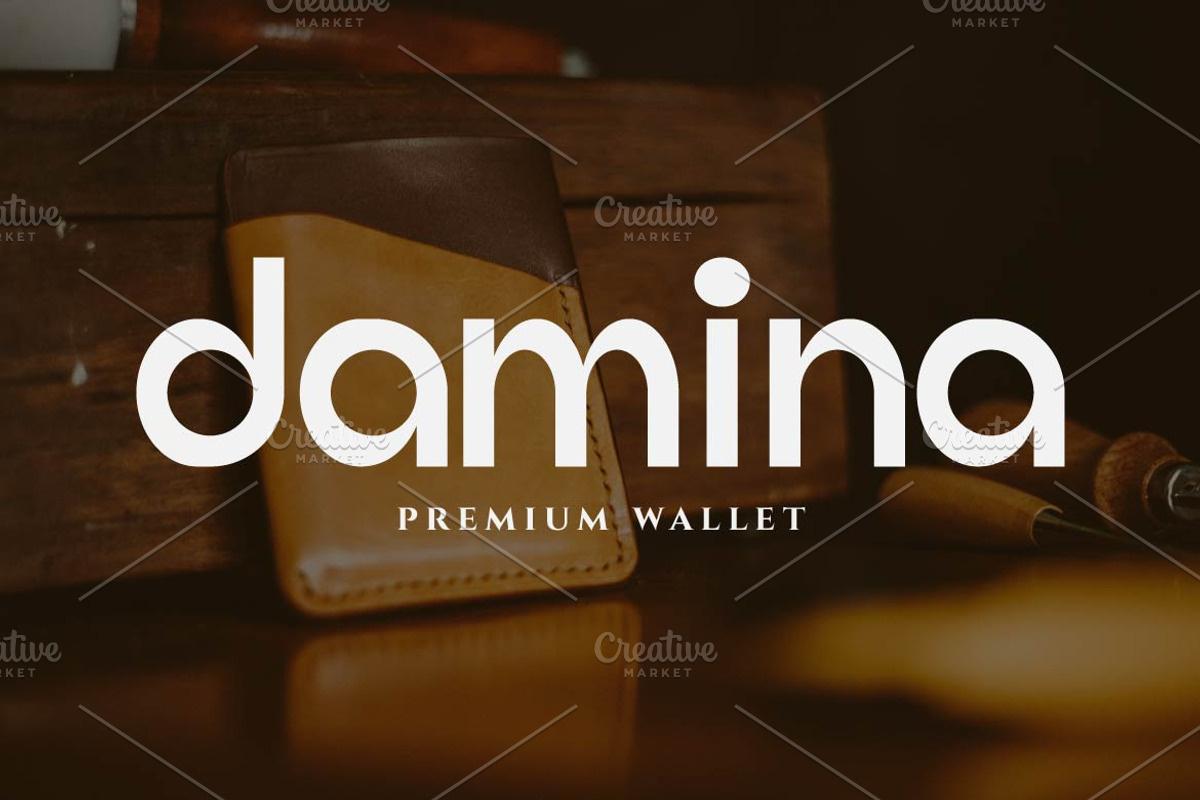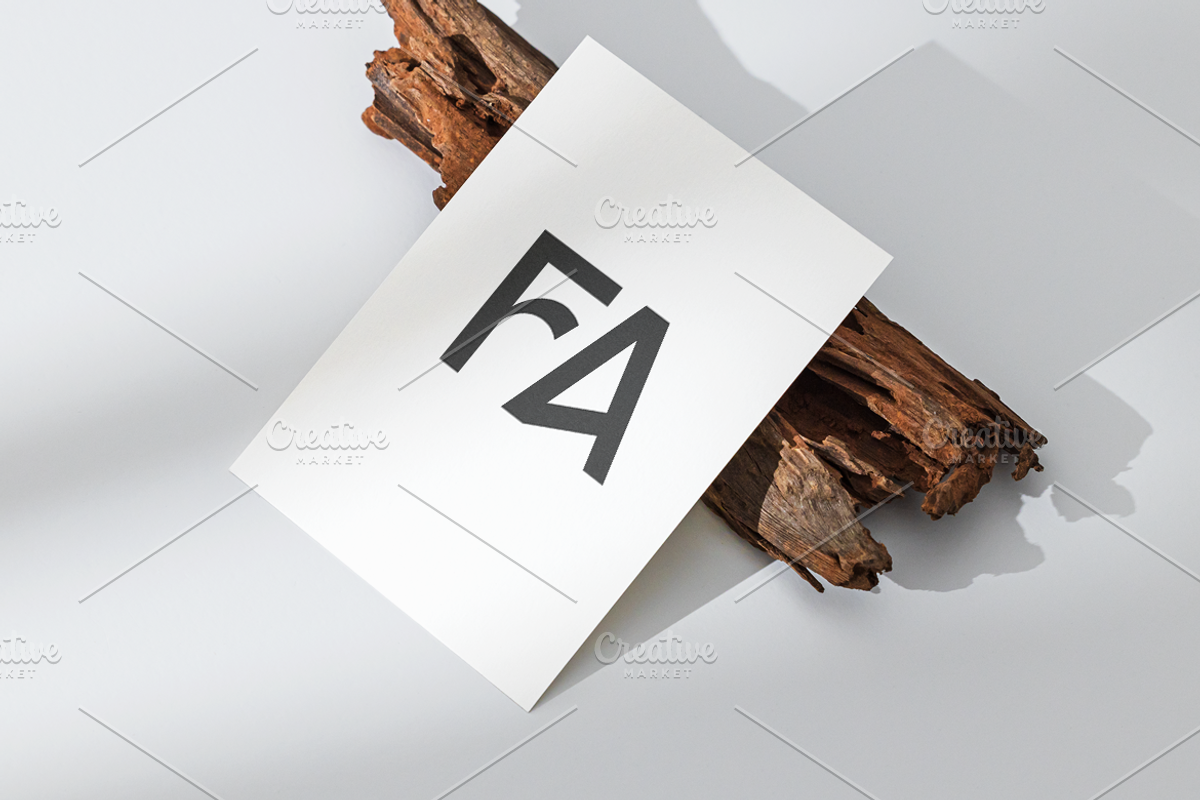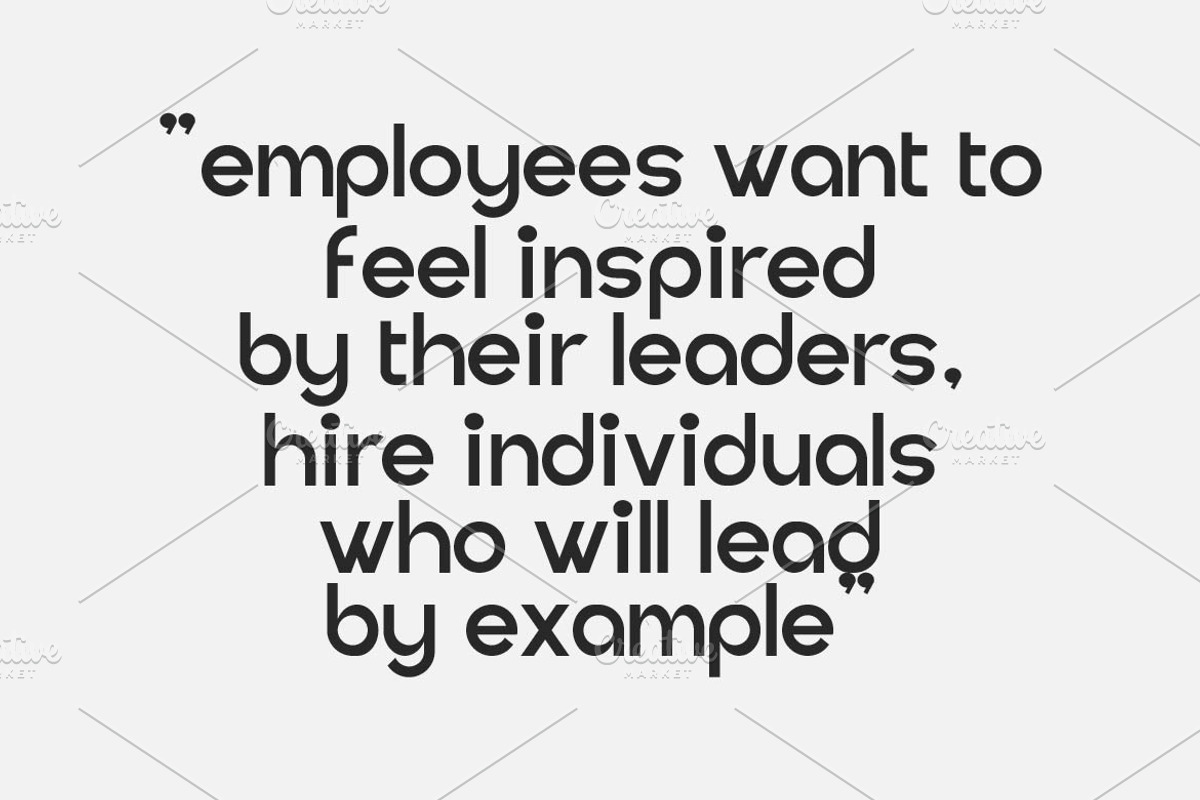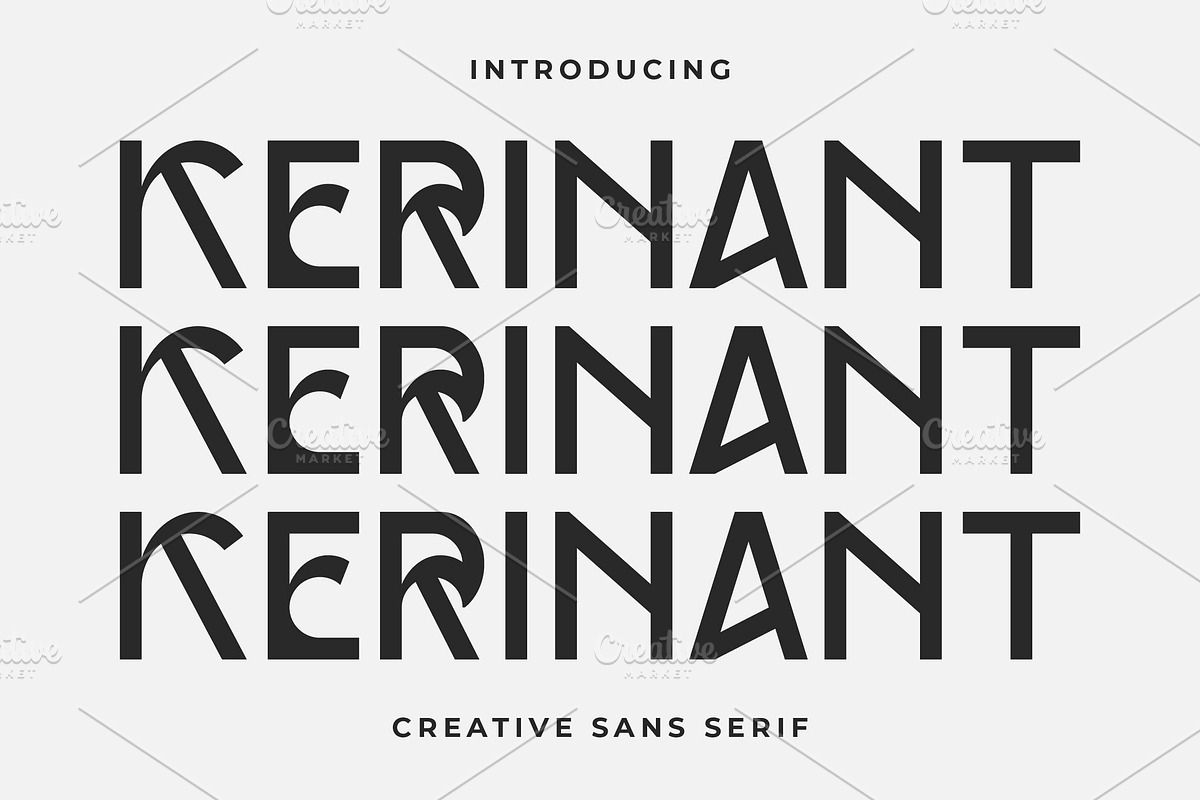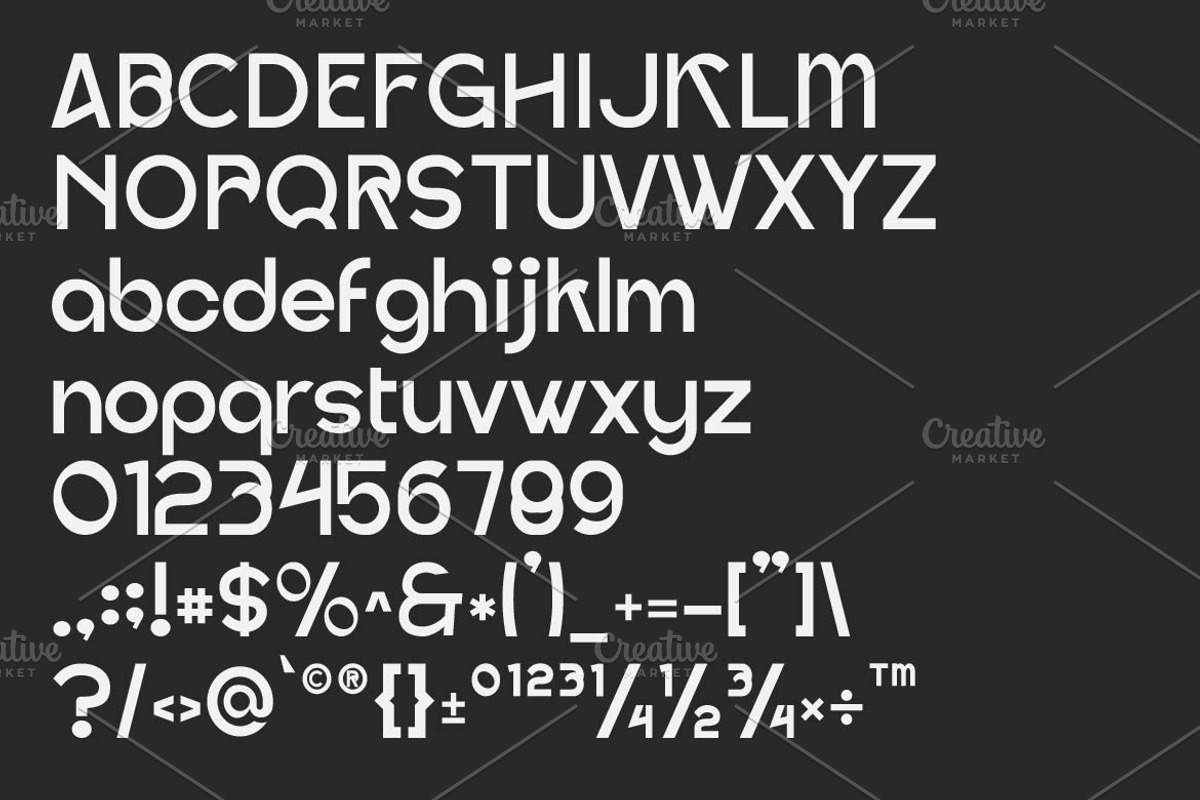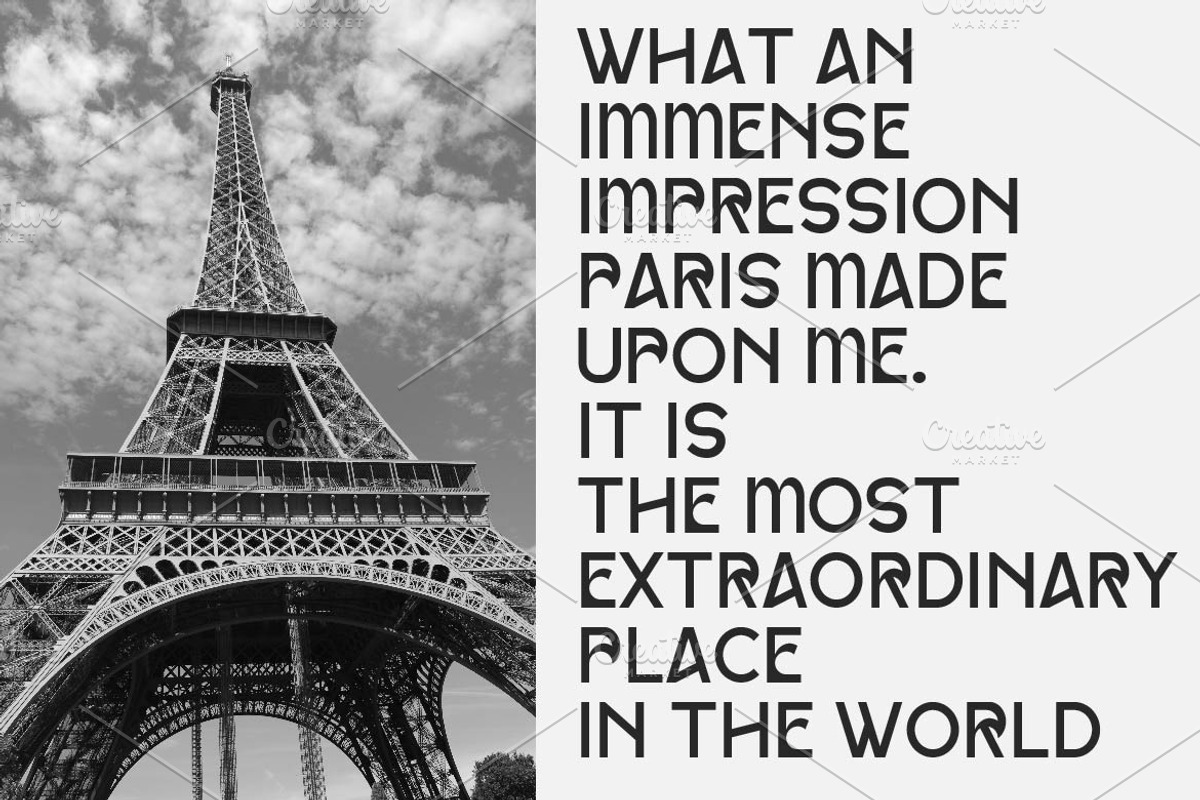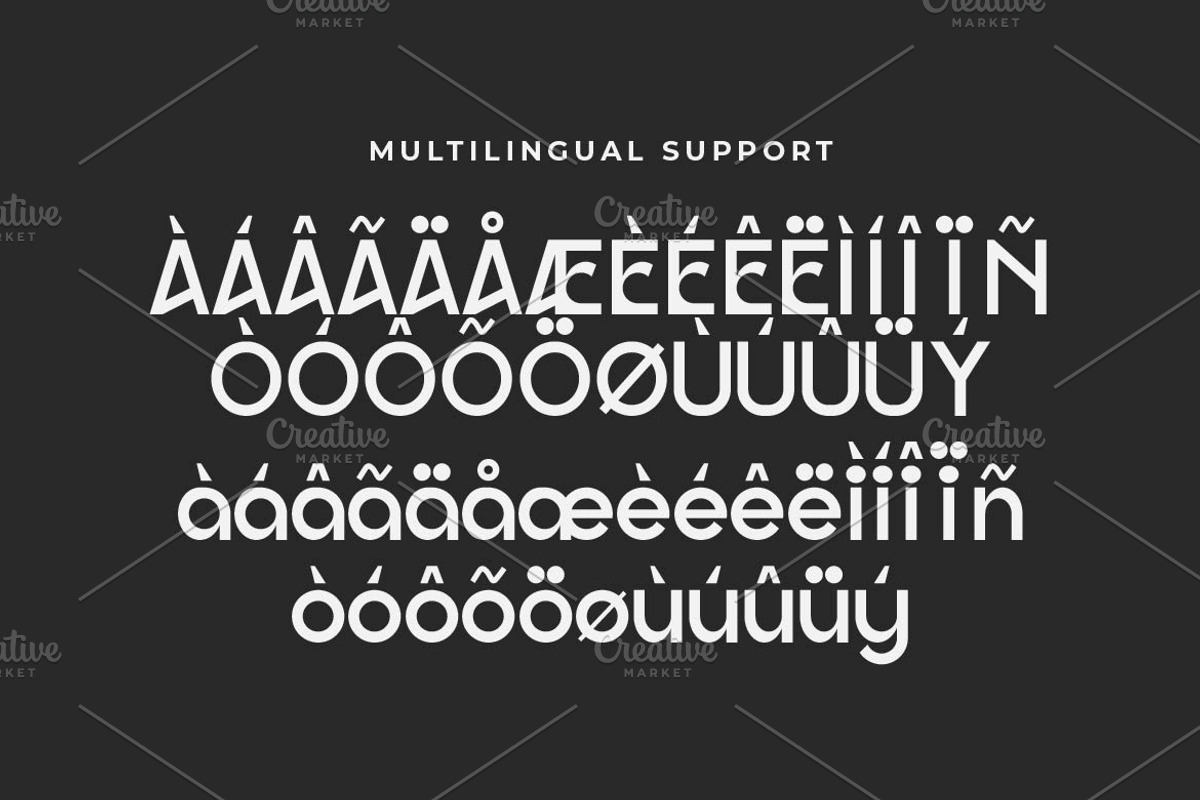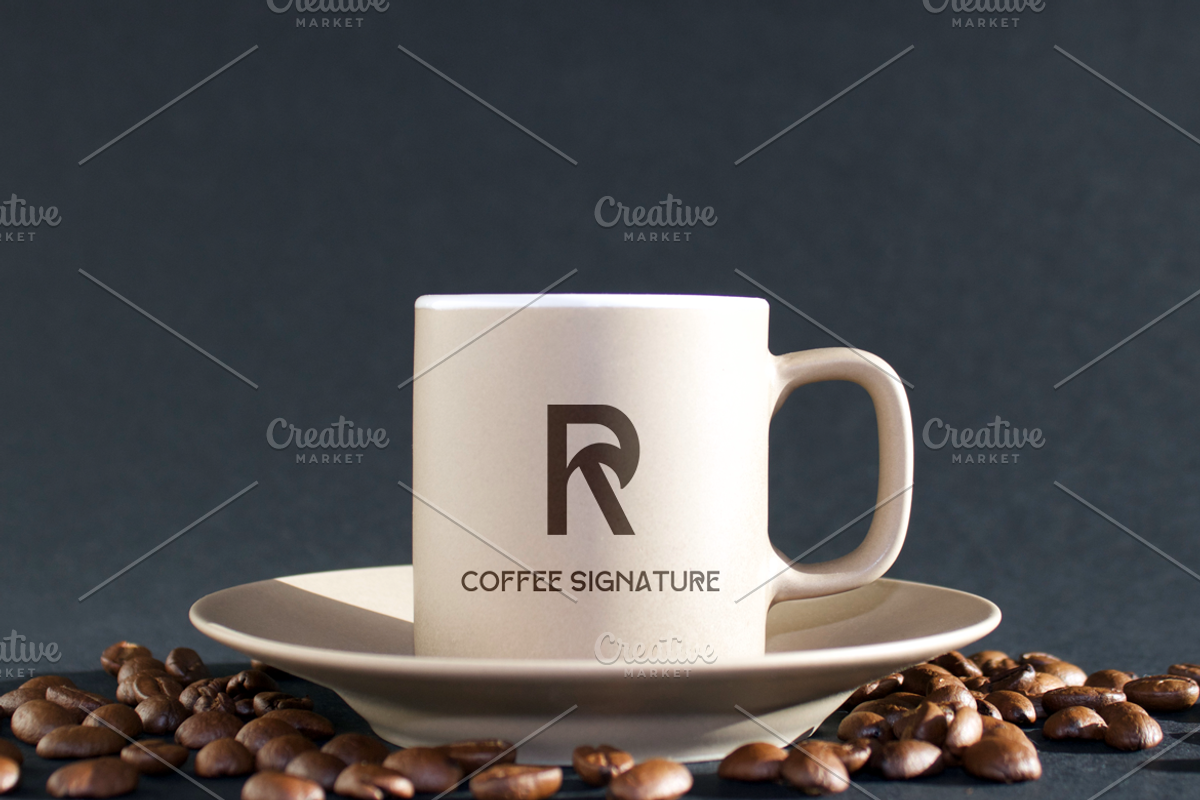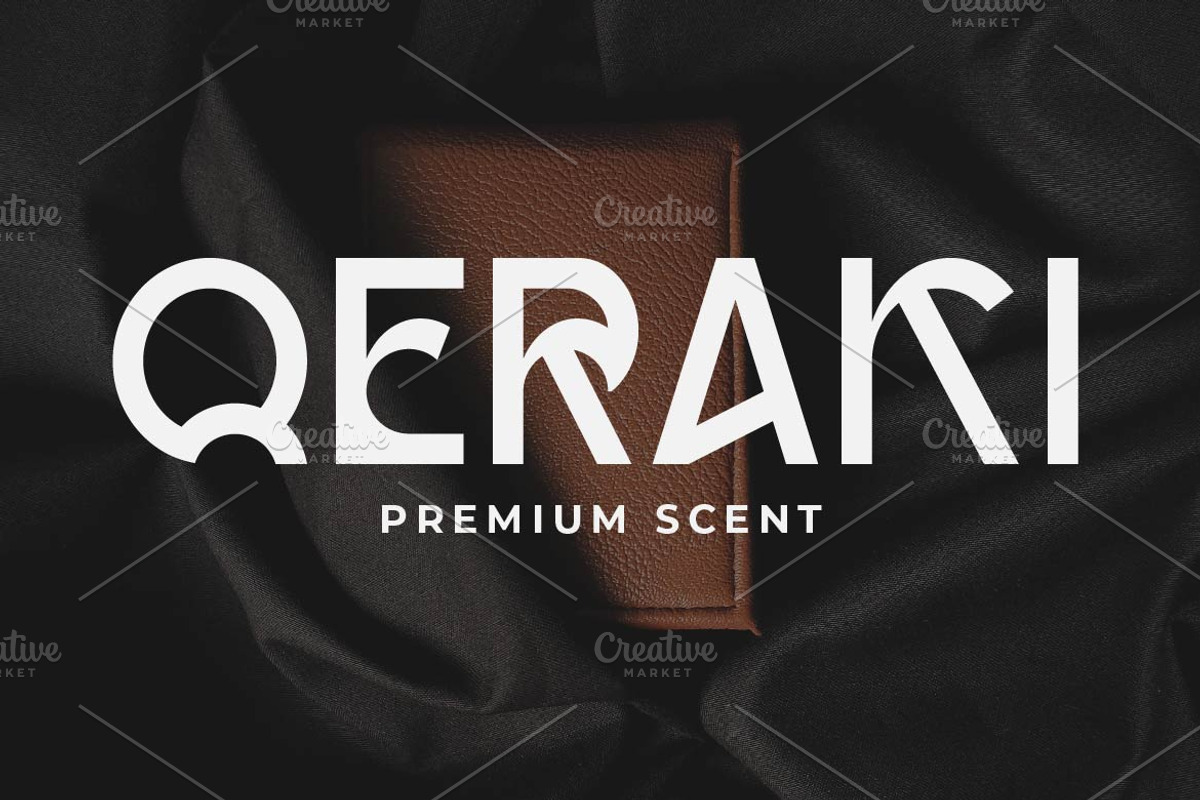
Kerinant Creative Sans
Kerinant is a creative sans serif font by Iwan Alwan, featuring bold and innovative letterforms that blend modern minimalism with unique design elements. Perfect for branding, posters, headlines, and digital design, Kerinant adds a distinctive edge to any project. With multilingual support, ligatures, and alternates, Kerinant combines versatility with a fresh, contemporary style, making it ideal for designs that aim to stand out with creativity and flair.